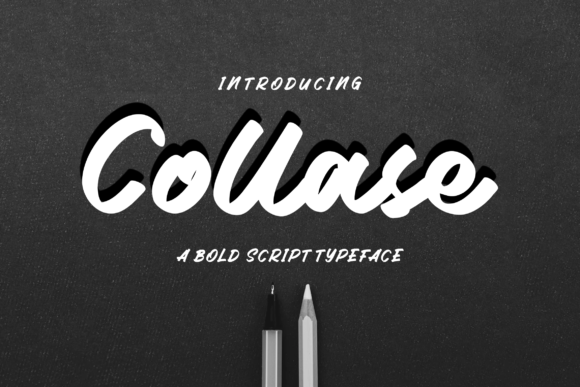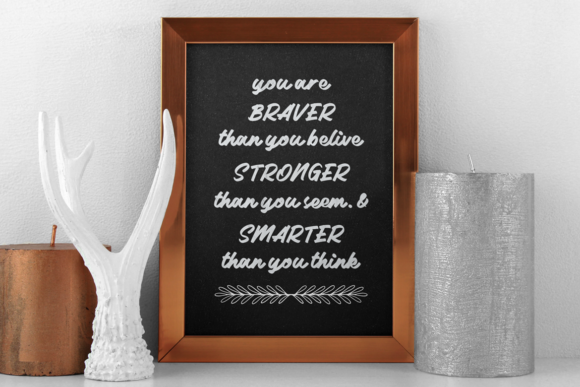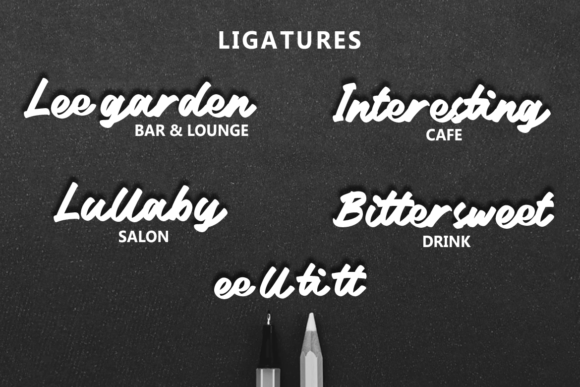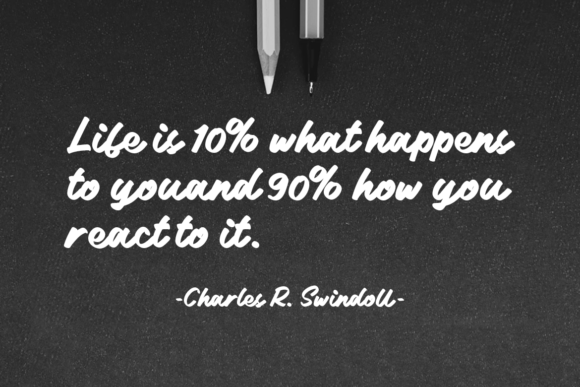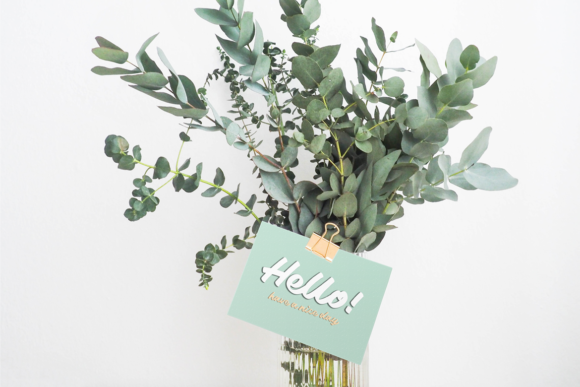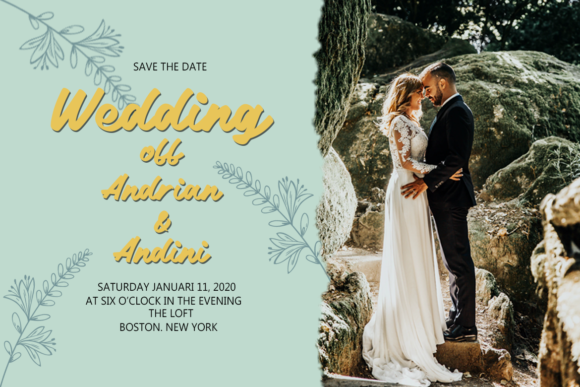
Collase Font
About Collase Font
Collase is a bold and cursive script font. This font reads as strong, confident, and dynamic and can add tons of nostalgic character to your designs.